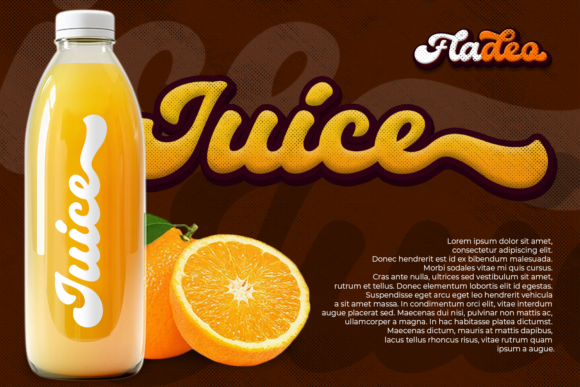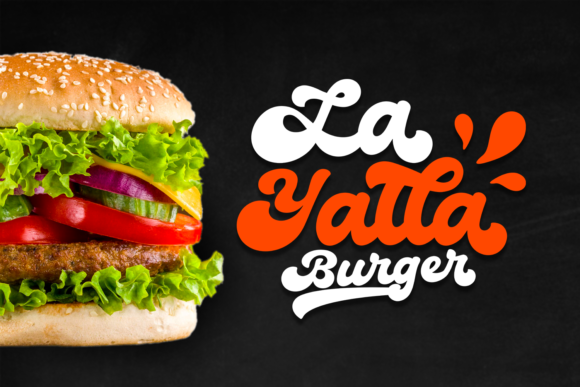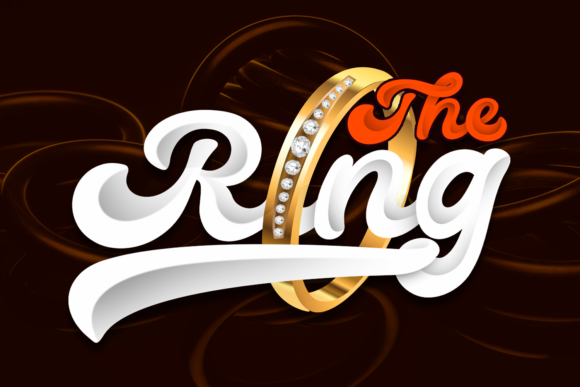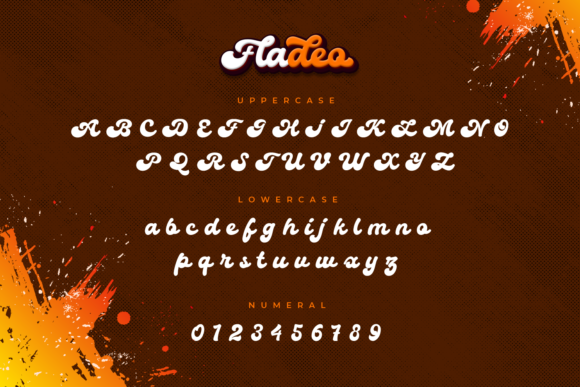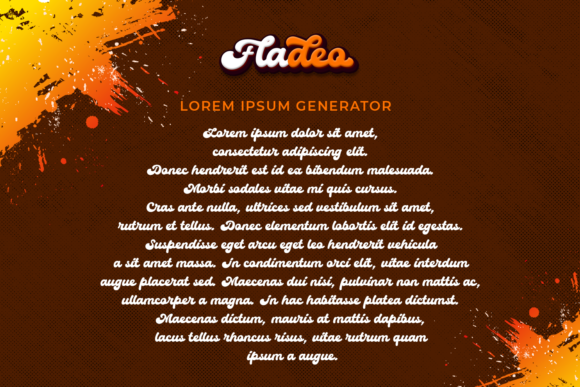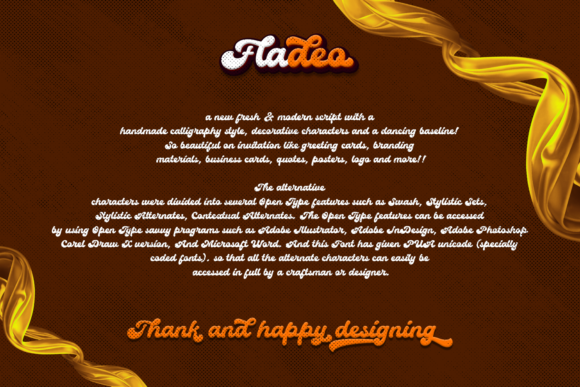
Introducing Fladeo Font: Add a Retro Touch to Your Designs
Are you looking for a font that can add a touch of nostalgia and sophistication to your designs? Look no further than Fladeo Font, a gorgeous and bold handwritten font that’s perfect for headlines, logotypes, and more. In this article, we’ll take a closer look at Fladeo Font and explore its features, benefits, and uses.
What is Fladeo Font?
Fladeo Font is a bold and beautiful handwritten font that’s designed to give your designs a retro touch. With its strong, confident, and dynamic letterforms, Fladeo Font is perfect for creating eye-catching headlines, logotypes, and other design elements. The font is crafted with a nostalgic feel in mind, making it ideal for designers who want to add a touch of vintage charm to their work.
Key Features of Fladeo Font
- PUA Encoded: Fladeo Font is PUA (Private Use Area) encoded, which means you can access all of the glyphs and swashes with ease. This makes it easy to customize your designs and add unique touches.
- Bold and Beautiful: Fladeo Font is a bold and beautiful handwritten font that’s perfect for creating eye-catching headlines and logotypes.
- Retro Touch: Fladeo Font has a distinct retro feel that’s perfect for designers who want to add a touch of nostalgia to their work.
- Dynamic and Confident: The font has a strong, confident, and dynamic feel that’s perfect for creating designs that make a statement.
Benefits of Using Fladeo Font
- Adds a Retro Touch: Fladeo Font is perfect for designers who want to add a touch of nostalgia to their work. The font’s retro feel is sure to evoke memories of the past and add a unique touch to your designs.
- Versatile: Fladeo Font is a versatile font that can be used in a variety of design projects, from headlines and logotypes to posters and packaging.
- Easy to Use: Fladeo Font is PUA encoded, making it easy to access all of the glyphs and swashes. This means you can customize your designs with ease and create unique and eye-catching designs.
- High-Quality: Fladeo Font is a high-quality font that’s designed to look great in any design project. The font is crafted with attention to detail and is sure to impress.
Who Can Use Fladeo Font?
- Graphic Designers: Fladeo Font is perfect for graphic designers who want to add a touch of nostalgia to their work. The font is ideal for creating eye-catching headlines, logotypes, and other design elements.
- Logotype Designers: Fladeo Font is a great choice for logotype designers who want to create unique and memorable logos.
- Posters and Flyer Designers: Fladeo Font is perfect for designers who create posters and flyers. The font’s bold and beautiful letterforms are sure to grab attention.
- Crafters: Fladeo Font is also great for crafters who want to add a personal touch to their projects. The font can be used for a variety of crafting projects, from scrapbooking to card making.
Tips for Using Fladeo Font
- Use it for Headlines: Fladeo Font is perfect for creating eye-catching headlines. Use it to add a touch of nostalgia and sophistication to your designs.
- Experiment with Colors: Fladeo Font looks great in a variety of colors. Experiment with different colors to find the perfect look for your design.
- Pair it with Other Fonts: Fladeo Font can be paired with other fonts to create a unique and interesting look. Try pairing it with a sans-serif font for a bold and modern look.
Fladeo Font is a gorgeous and bold handwritten font that’s perfect for designers who want to add a touch of nostalgia to their work. With its strong, confident, and dynamic letterforms, Fladeo Font is ideal for creating eye-catching headlines, logotypes, and other design elements. Whether you’re a graphic designer, logotype designer, or crafter, Fladeo Font is a great choice for any design project.